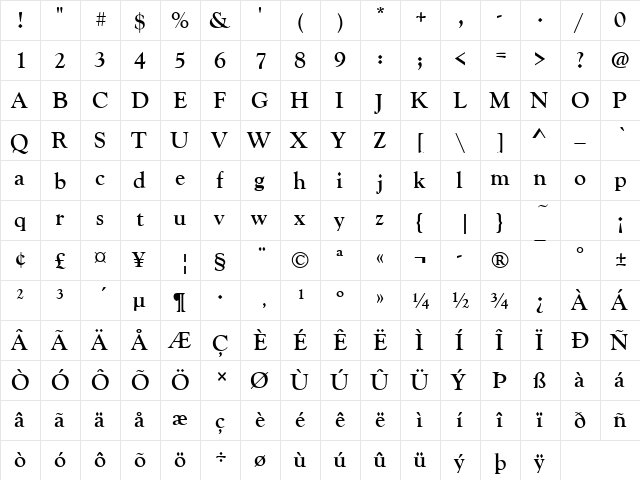
Goudy Becker Old Style Bold
Design Context for Goudy Becker Old Style Typeface
Goudy Becker Old Style is a composed and adaptable typeface that performs quietly and consistently across a wide range of design contexts. Its bold stroke weight gives it real presence on the page.
Pro Tip: Use Goudy Becker Old Style in both headline and body roles to test its range before committing to a single application.